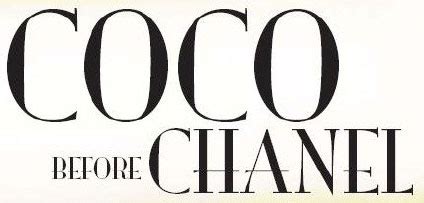
In this article, we’ll explore everything there is to know about chanel’s design. It comes in six weights with matching italics and features an extended character set with open type support for. Web the name of the typeface family comes from the nickname of fashion beloved icon coco chanel. Of course, the choice of these two. Browse our extensive catalog of coco chanel fonts for your project. Simply download it from the link below. Web what font does chanel use? The font of the chanel brand is made up of two letters ‘cc’ face back each other. Web coco chanel fonts generator & download. We’ll also provide you with great alternatives that look just like the chanel font.